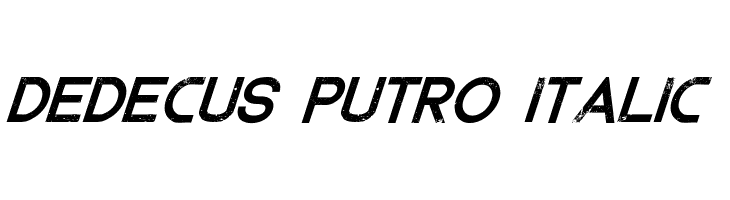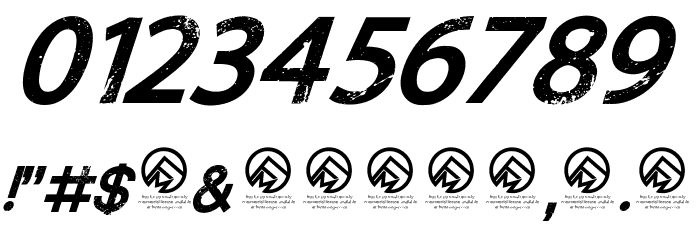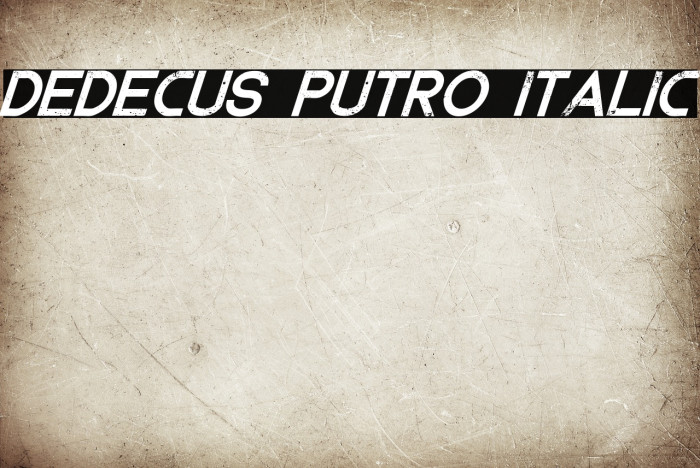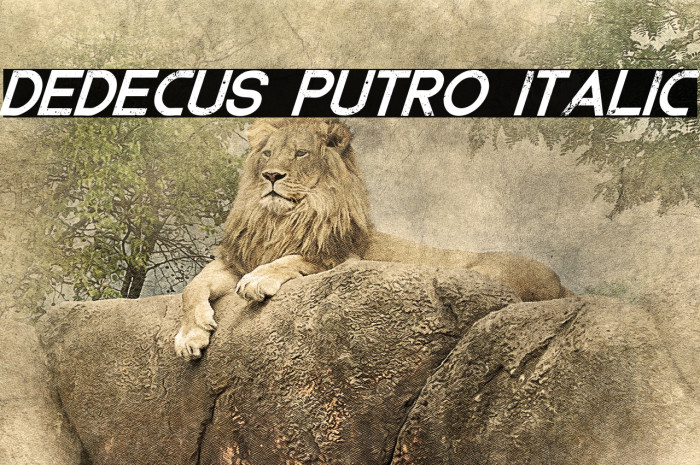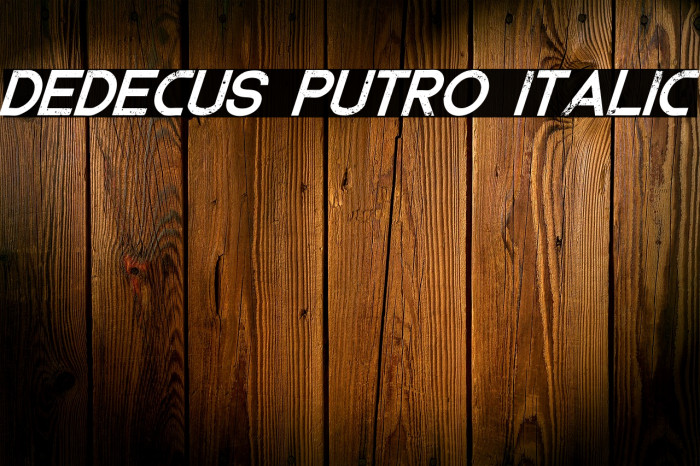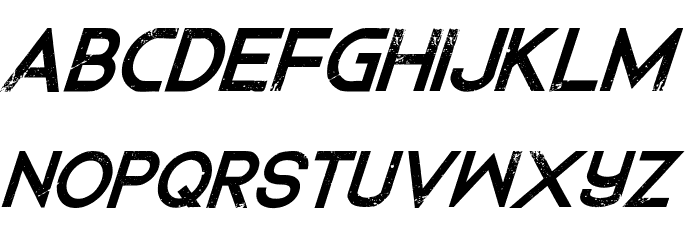
Dedecus Putro Italic Font
Dedecus Putro Italic Description
This font features a bold and dynamic italic style with a distressed, grunge texture. The letters are slanted, giving a sense of motion and energy. The uppercase and lowercase characters maintain a consistent style, with sharp angles and a slightly condensed form. The numbers follow the same aesthetic, ensuring uniformity across all characters. Special characters are included, matching the overall rugged and edgy appearance. This font is ideal for projects that require a bold statement or a modern, rebellious look.
A bold, italic font with a distressed, grunge texture from Distorted Eroded fonts.
- Proposed Projects: Ideal for posters, album covers, branding for edgy or alternative products, and any design needing a bold, dynamic impact.
- Overall Style: Modern, Grunge